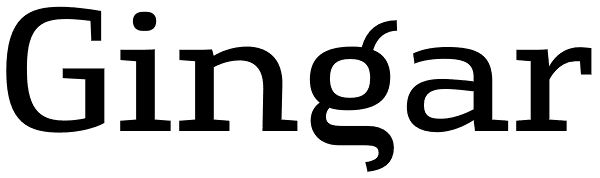
Gingar
I proudly present Gingar, a warm and friendly headline face with a Slab Serif touch. A good mixture of the playful and the classic. A proper font. Gingar was inspired by Nadine Tischler, a fellow student at FHP. She 1st had the idea to design a font...